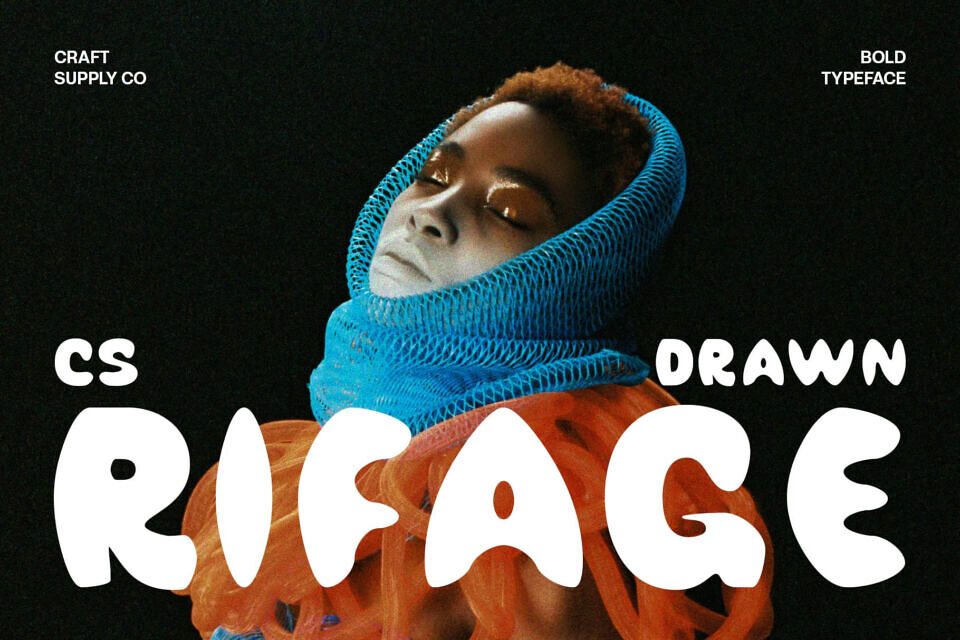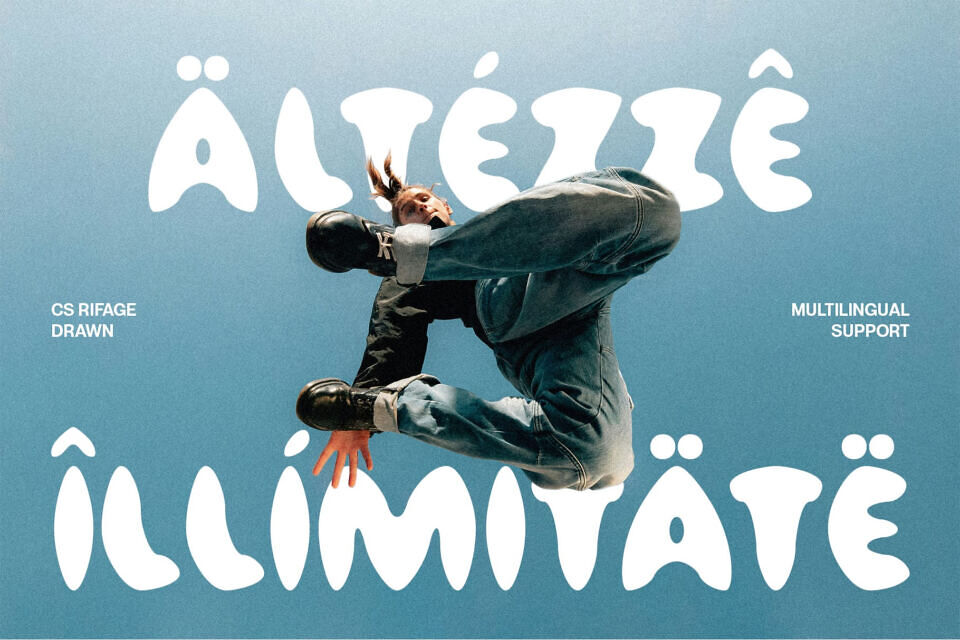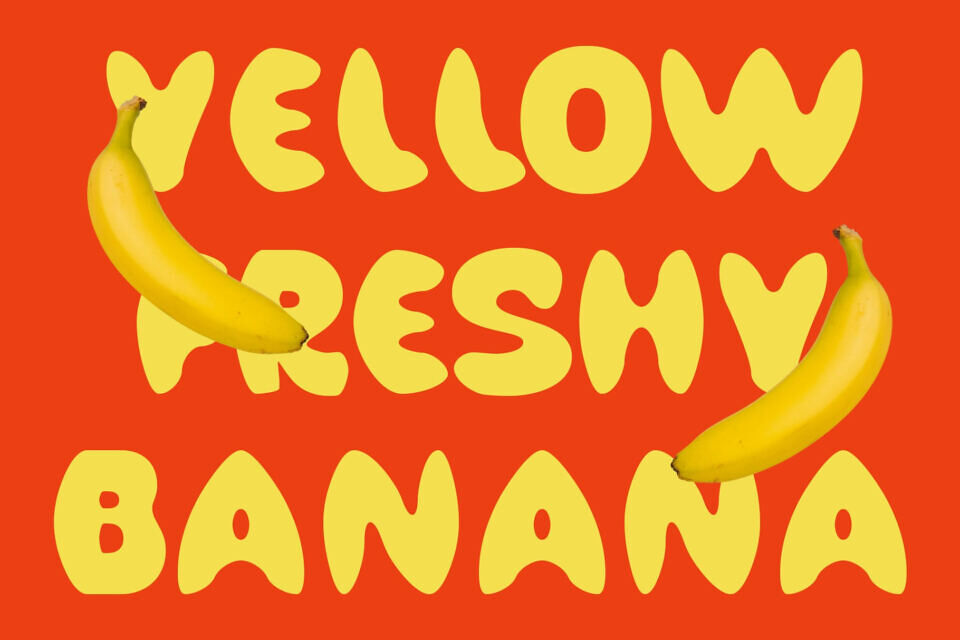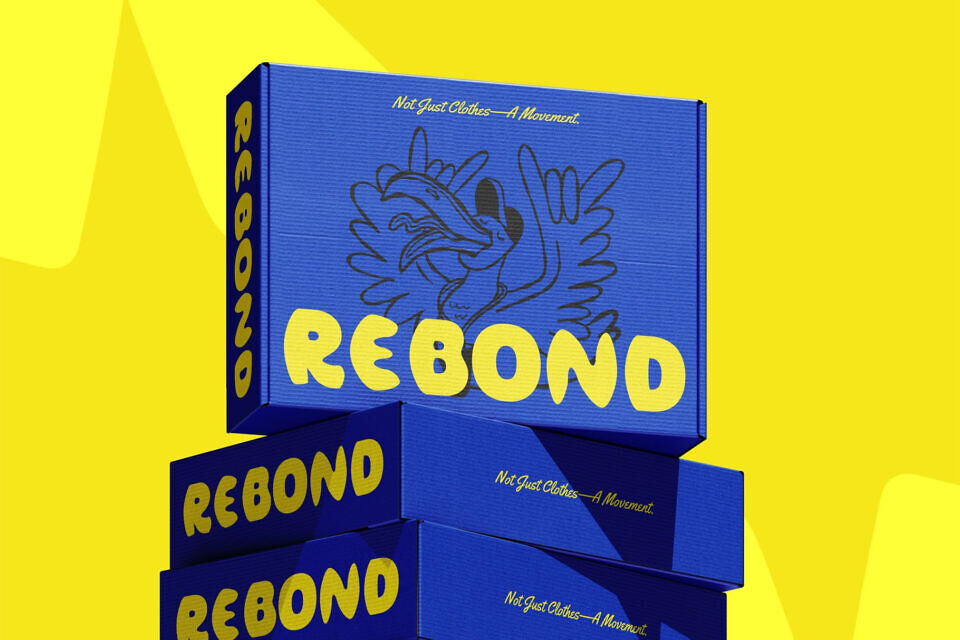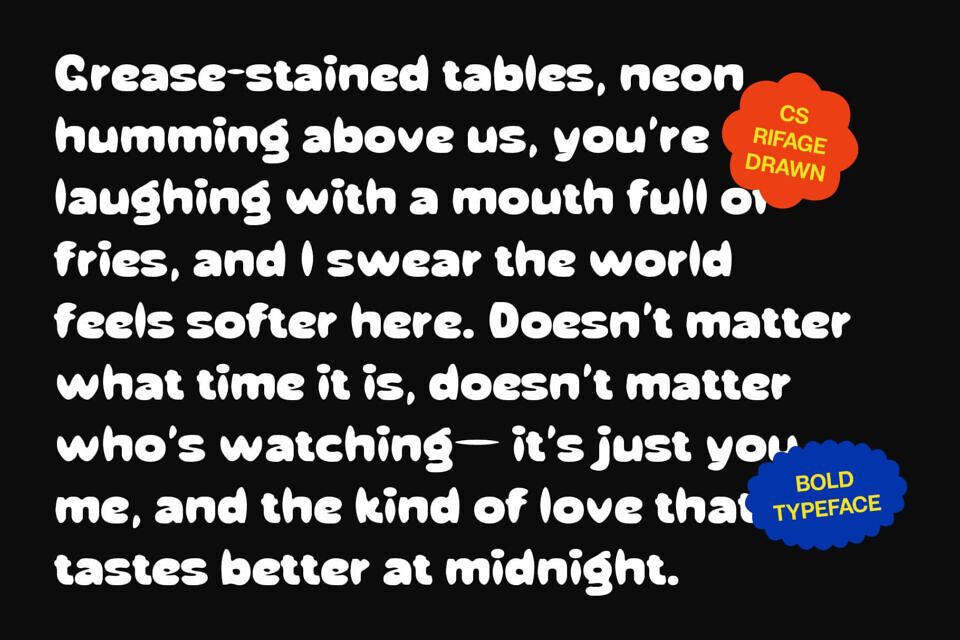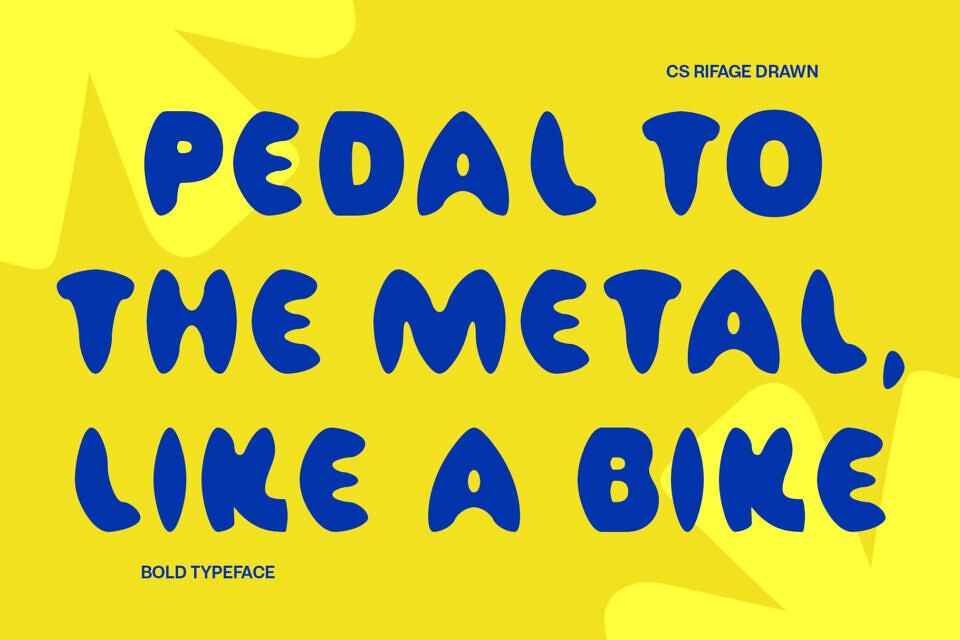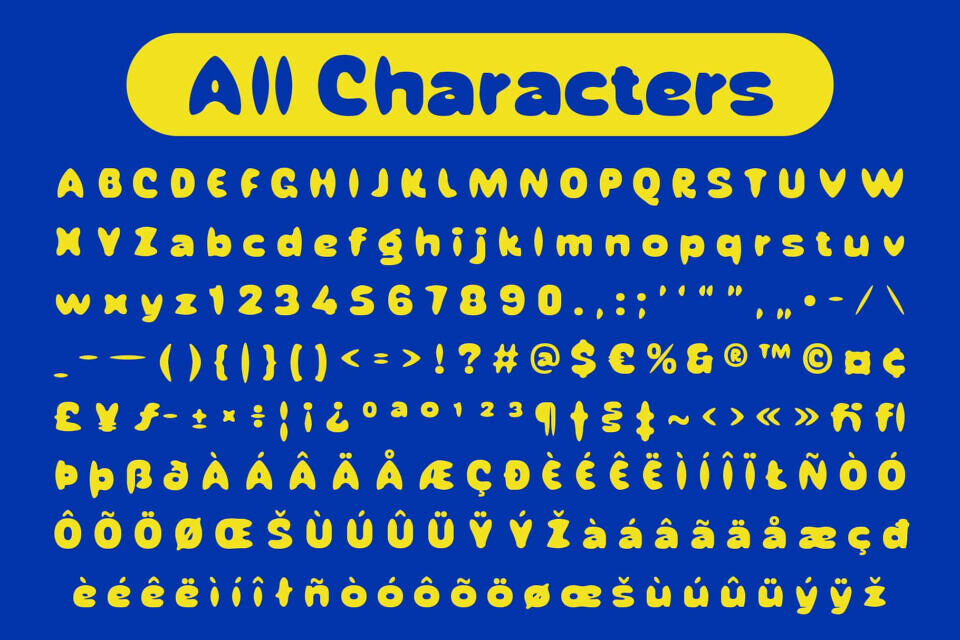
Cs Rifage Drawn Font
CS Rifage Drawn is a bold, playful display sans serif font with a unique hand-drawn effect. Its clean letterforms and handcrafted texture create a cheerful, energetic, and visually striking appearance, perfect for attention-grabbing projects.
Ideal for posters, branding, and headlines, this expressive font adds personality and dynamism to any design. Its bold yet readable style ensures your work stands out.